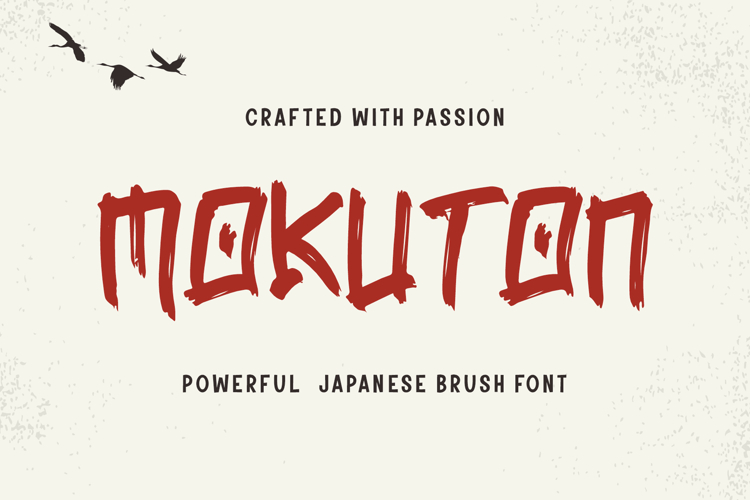
Mokuton | Japanese Handbrush Display Font
Mokuton is a Japanese handbrush display font inspired by traditional brush lettering and modern expressive calligraphy. Designed with strong strokes and natural ink flow, this typeface captures the essence of hand-painted characters while maintaining a bold and contemporary look. The balance between rough brush texture and structured letterforms makes Mokuton both artistic and highly usable.
Each character in Mokuton is crafted to reflect the dynamic movement of a real brush. The varying stroke thickness, rough edges, and organic curves create a sense of rhythm and motion that brings text to life. This natural imperfection is what gives the font its authentic feel, making it perfect for designs that require strong visual impact and cultural nuance.
Mokuton includes uppercase and lowercase characters, allowing flexibility for a wide range of typographic compositions. The uppercase letters deliver a bold and commanding presence, ideal for headlines and titles, while the lowercase set provides a more fluid and natural flow for supporting text. This combination makes the font adaptable for both expressive and structured layouts.
The font also includes numbers and punctuation, designed to harmonize with the brush style. Each symbol maintains the same organic texture, ensuring consistency across all text elements. With multilingual support, Mokuton can be used across various languages, making it suitable for global projects and diverse audiences.
Mokuton is particularly effective in creative applications that require a strong visual identity. It works beautifully for branding, posters, packaging, merchandise, apparel design, album covers, and social media graphics. Its brush style gives designs a handcrafted and artistic appearance, making them feel more authentic and engaging.
This font is especially suitable for themes related to Japanese culture, Asian-inspired design, streetwear, and modern calligraphy. It can also be used in food branding, such as ramen shops, sushi restaurants, or beverage packaging, where a bold and traditional aesthetic is desired.
From a design perspective, Mokuton pairs well with minimalist sans-serif fonts to create contrast and balance. Designers can use it as a headline font while keeping body text clean and readable. It also works well with textured backgrounds, ink effects, and bold color palettes to enhance its visual impact.
Technically, Mokuton is optimized for both print and digital use. Its vector-based design ensures sharp and clear output across different sizes and formats. Whether used for large-scale posters or smaller branding elements, the font maintains its detail and quality.
Another advantage of Mokuton is its versatility. It can be used in both modern and traditional contexts, making it suitable for a wide range of creative directions. Its bold appearance makes it a strong focal point, while its organic texture adds depth and character.
Overall, Mokuton is more than just a font—it is a visual expression of brush artistry and cultural inspiration. It allows designers to create bold, expressive, and memorable designs that stand out in any medium.